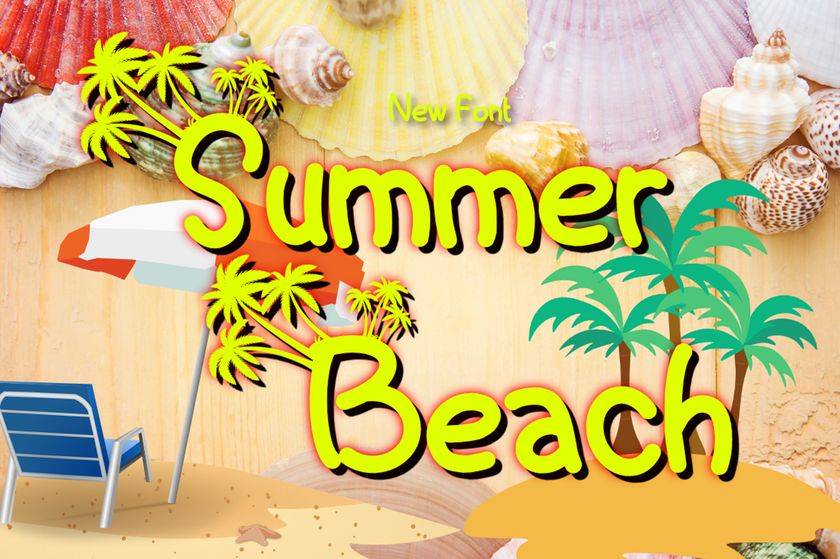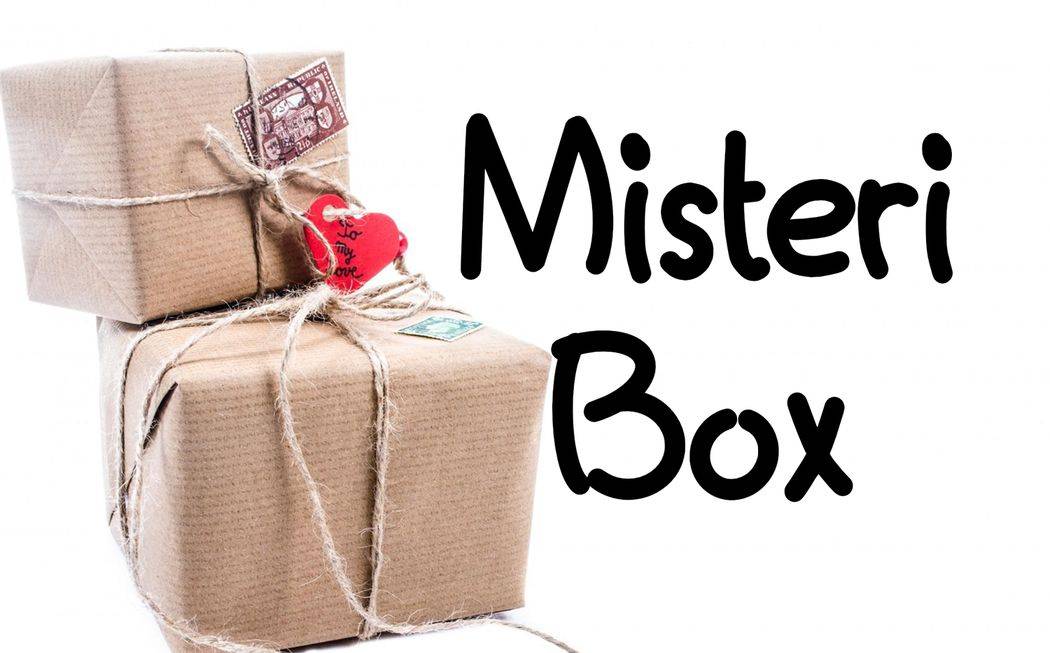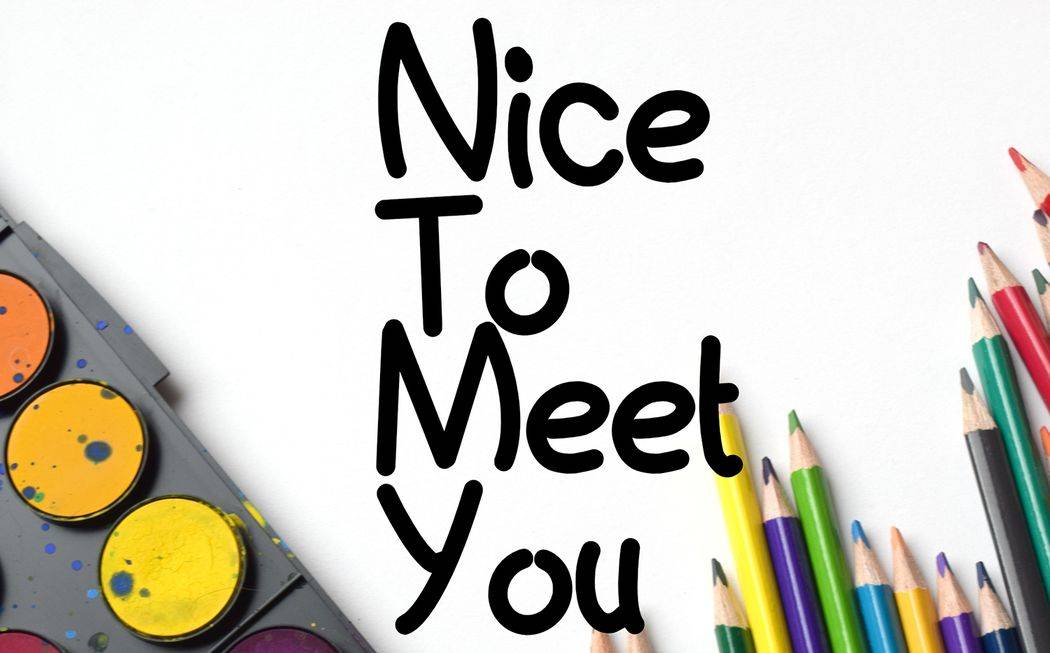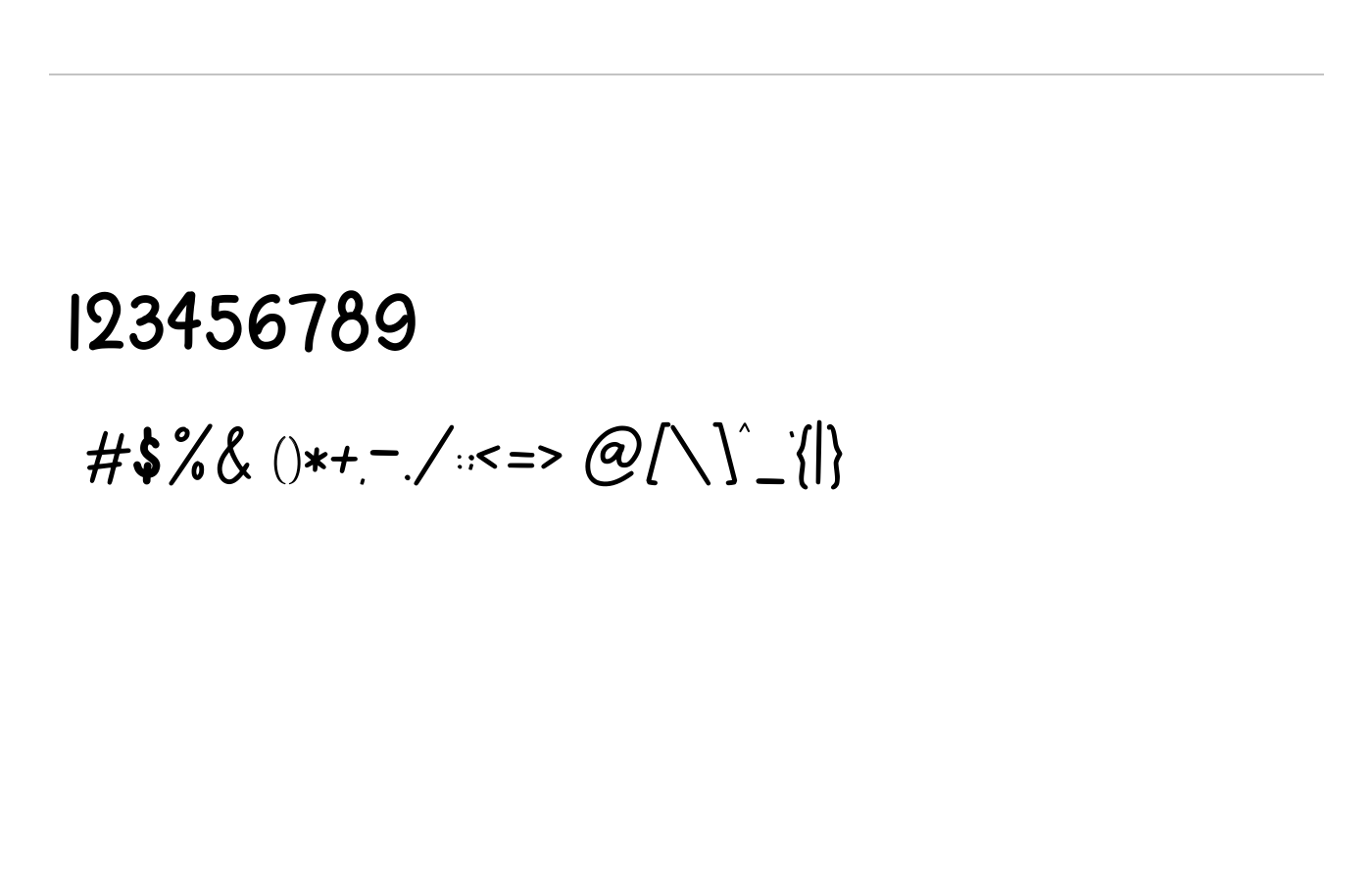
Summer Beach is a casual, playful handwritten font with a light weight and a slightly condensed width that gives it a friendly, approachable feel. Its simple, rounded strokes and informal letterforms evoke a relaxed, summery vibe, making it perfect for projects related to lifestyle, travel, and fun branding. This font works well for headlines, logos, and social media graphics where a laid-back and inviting tone is desired.
Summer Beach Font
About Summer Beach Font